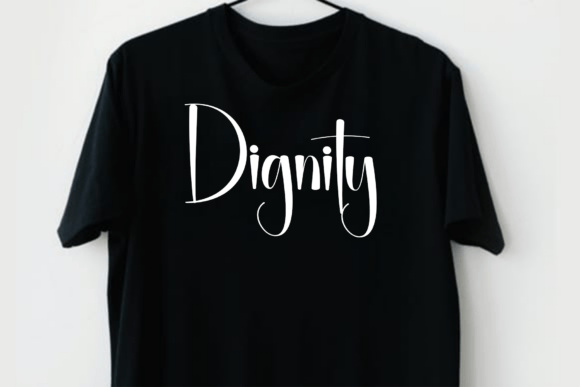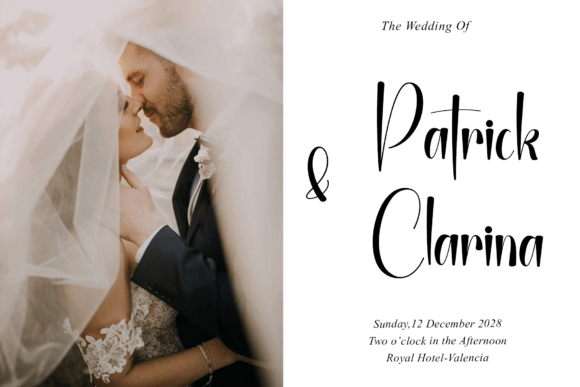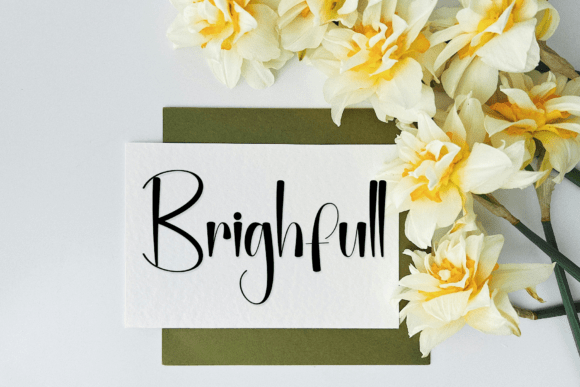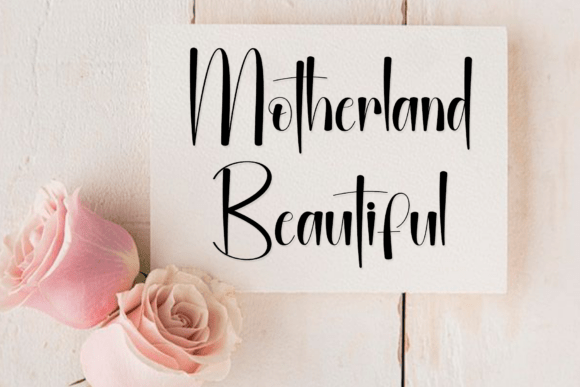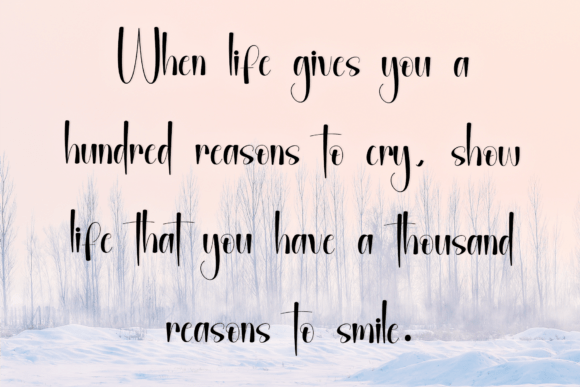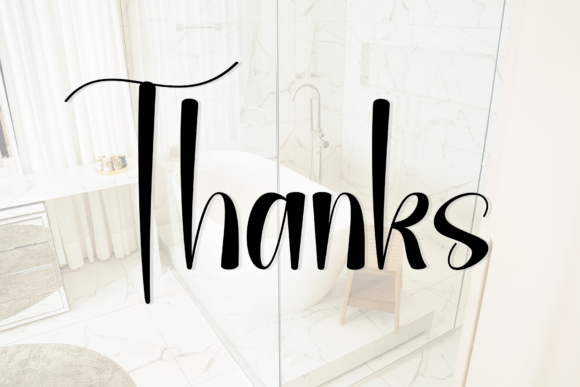
The Elegant Bathine Font: Elevate Your Designs with Sophistication
I still remember the design project that led me to discover the Bathine font. I was working on a branding project for a high-end lifestyle boutique, and I was struggling to find the perfect font that would convey elegance and sophistication. The client wanted a custom, hand-penned feel that would set their brand apart from the competition. After hours of searching, I stumbled upon Bathine, and it was love at first sight. The vertically elongated letterforms, the smooth character joins, and the rhythmic visual flourishes all came together to create a truly unique and captivating font.
An Honest Review of Bathine
- ✨ Sophisticated and fluid script: Bathine’s elegant design makes it perfect for high-end branding and marketing projects.
- ✅ Easy to read: Despite its ornate feel, Bathine remains highly legible, even at smaller font sizes.
- 💫 Customizable: With its range of OpenType features and glyphs, Bathine offers plenty of opportunities for creative experimentation.
While Bathine is an exceptional font, there are a few things to keep in mind:
- 🤔 Limited use in body text: Due to its elegant, cursive nature, Bathine is best suited for headlines, titles, and short paragraphs.
- ⚠️ Pay attention to font size: Bathine’s delicate lines and curves can get lost at very small font sizes.
- Experiment with OpenType features like ligatures and stylistic alternates to add visual interest.
The Story Behind Bathine
Bathine was designed with the intention of capturing the elegance and sophistication of traditional ink work on paper. The designer aimed to create a font that would evoke a sense of customized artistry and professional visual flow. Through its smooth character joins and rhythmic visual flourishes, Bathine brings a touch of luxury to any design project.
| What is Bathine best used for? | Bathine is ideal for boutique brand identities, personal signature watermarks, elegant lifestyle marketing, and professional social media headers. |
| Is Bathine suitable for body text? | No, Bathine is best suited for headlines, titles, and short paragraphs due to its elegant, cursive nature. |
| Does Bathine support OpenType features? | Yes, Bathine supports a range of OpenType features, including ligatures, stylistic alternates, and glyphs. |